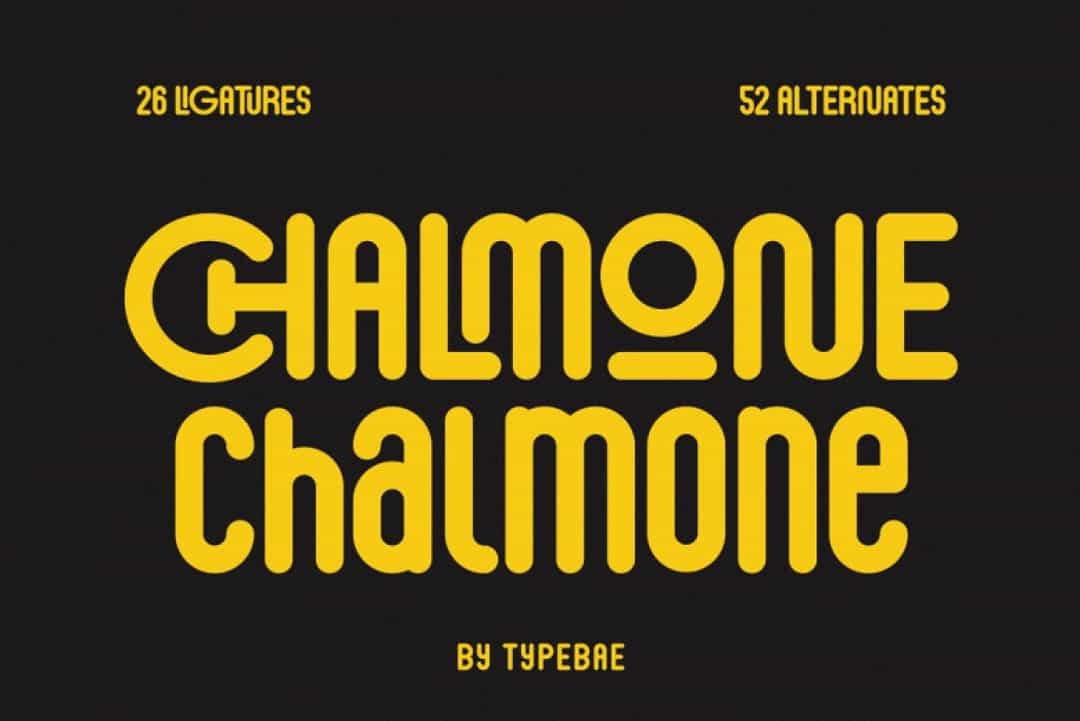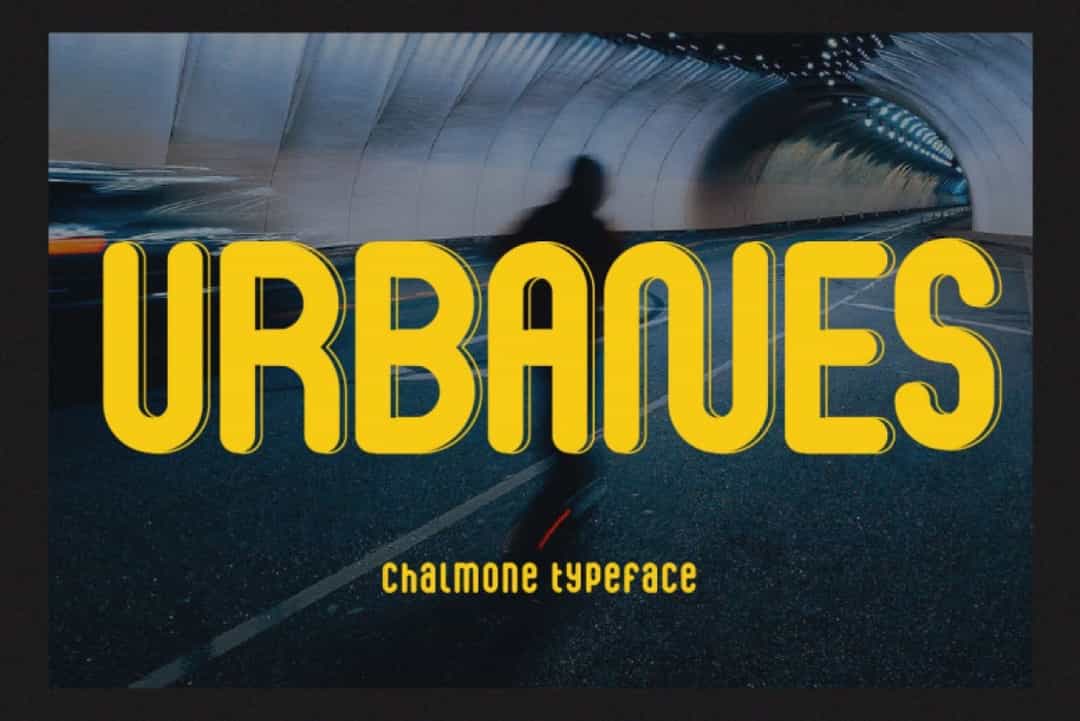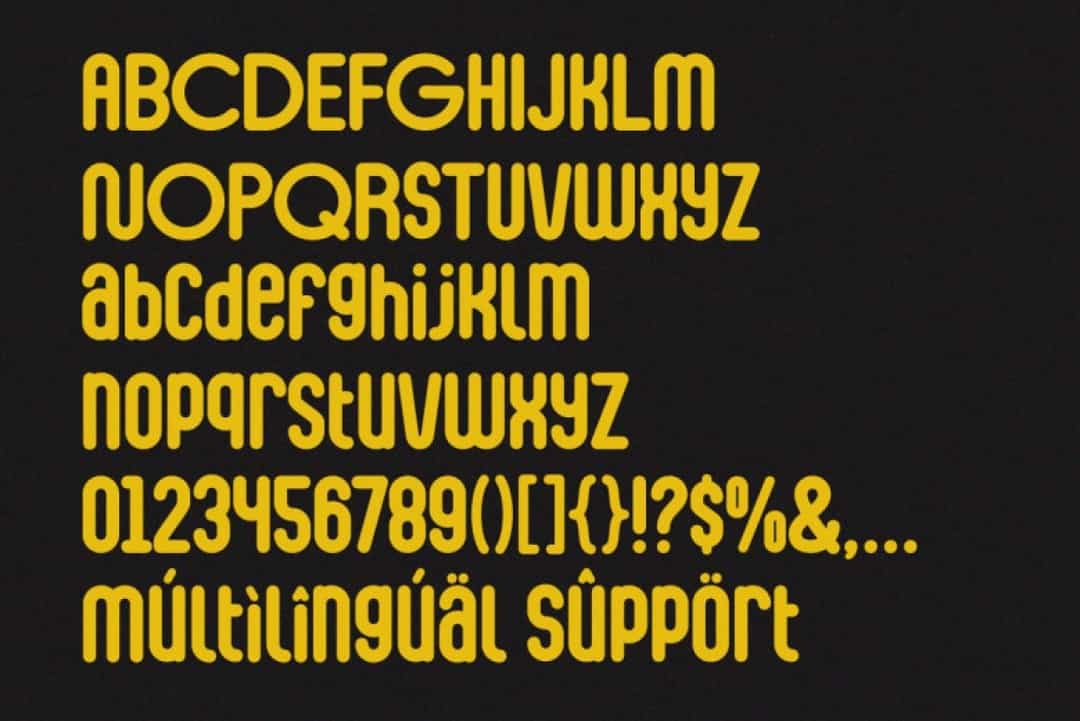
Chalmone is an oversized and round sans serif font that boasts an appealing, captivating appearance. Featuring 26 distinct sublined fonts and ligatures, the font was originally intended for larger point sizes but doesn’t become stagnant when reduced down in size, giving designers more freedom when designing projects.